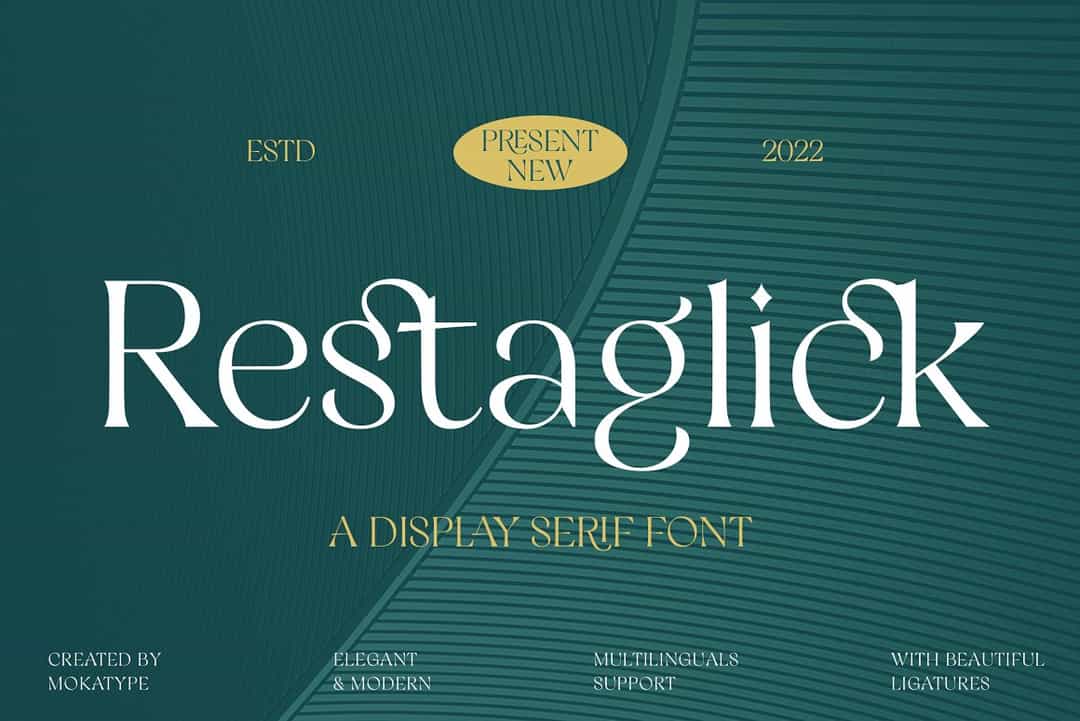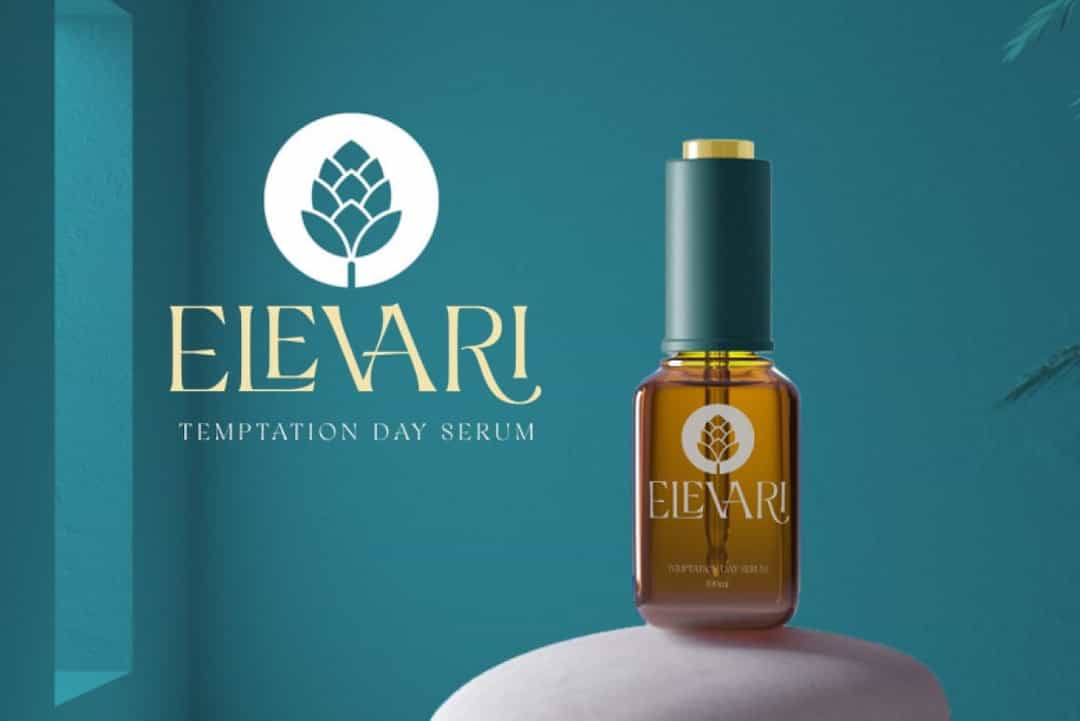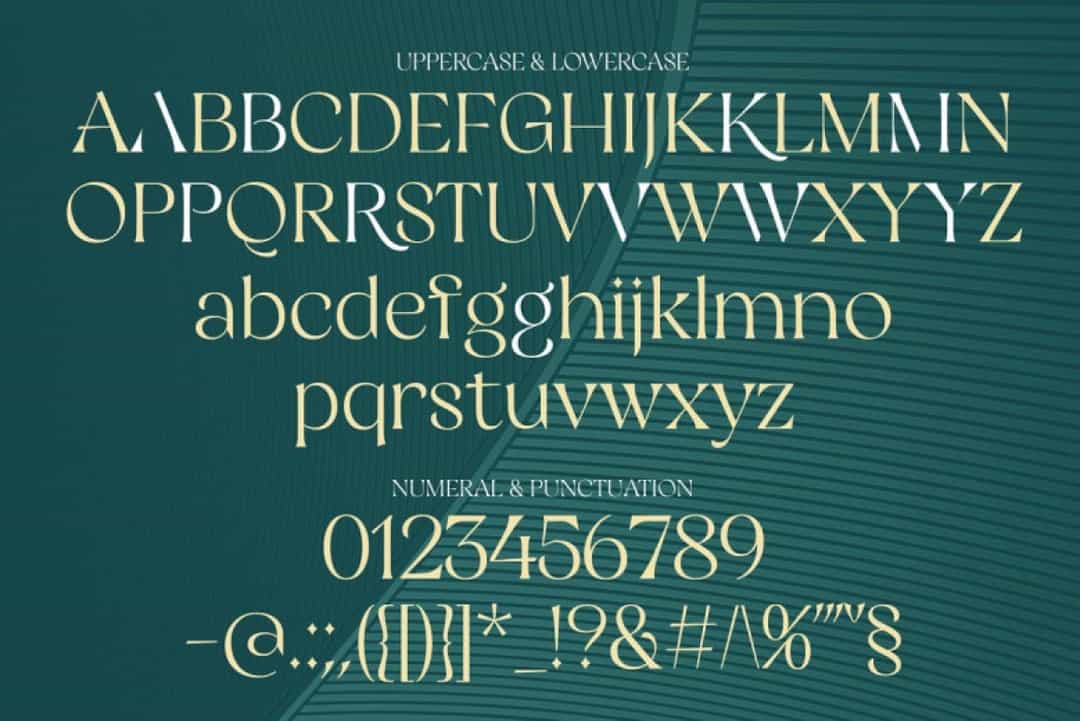
Welcome to Restaglick – an elegant font using Ligatures Connected Serif to connect letters seamlessly. Ideal for adding unique designs to logos for wordmarks monograms as well as pull quote. Featuring 28 Ligatures it truly makes this font truly remarkable!